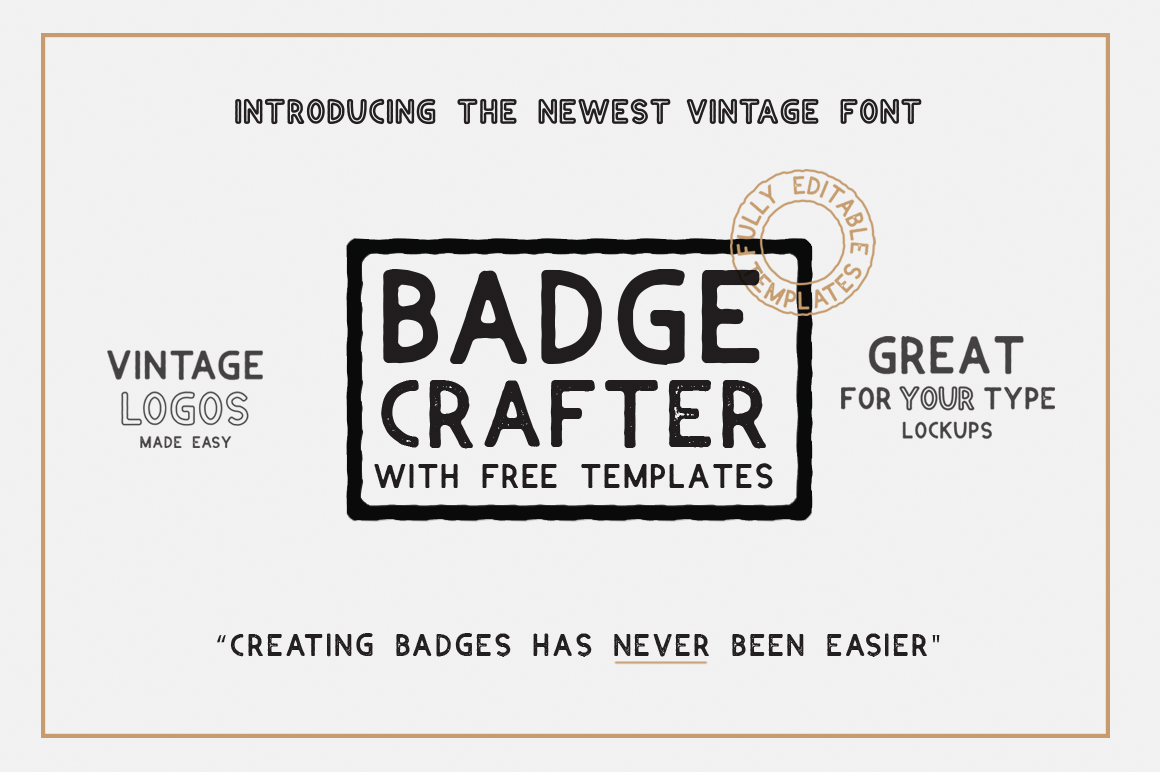
BADGE CRAFTER (Font + LOGO templates
BADGE CRAFTER is my newest font, it's bold, gritty, vintage and is perfect for creating badges and logo designs!
The font already includes numbers and a bunch of symbols & punctuation, but you can expect more very soon!